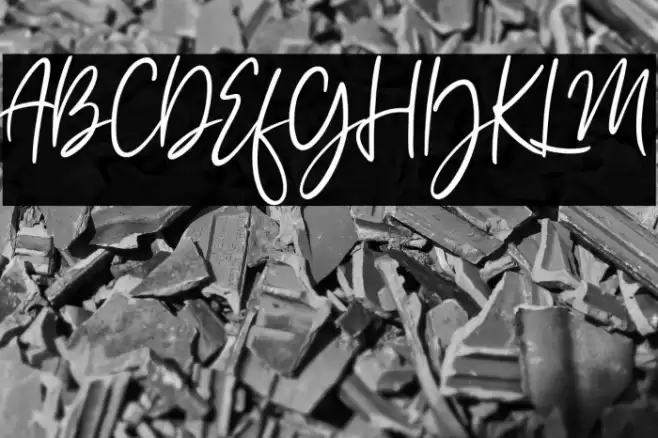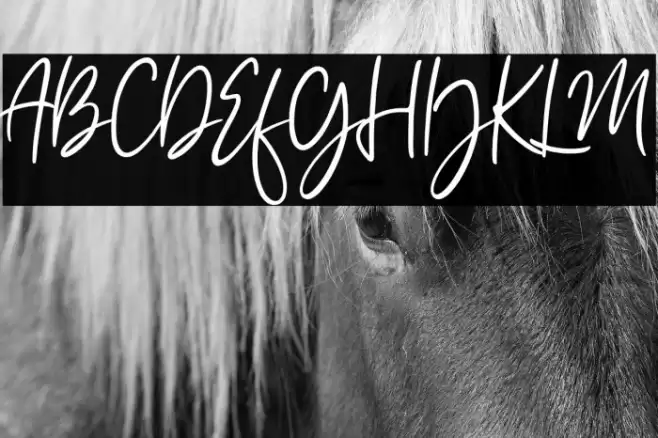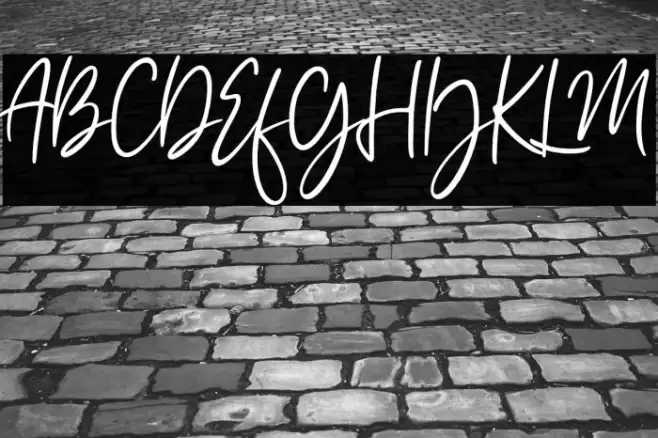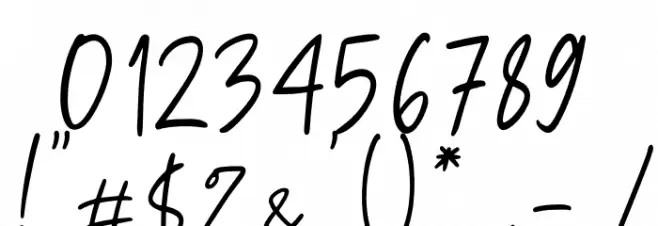
Amelia Sophia Font
Amelia Sophia Description
This font features a flowing, cursive style that mimics elegant handwriting. The letters are interconnected, creating a seamless and fluid appearance. The uppercase letters are tall and graceful, while the lowercase letters maintain a consistent rhythm and balance. The numbers and special characters complement the overall style with their smooth curves and loops. This font exudes a sense of sophistication and charm, making it ideal for projects that require a personal touch.
A flowing, cursive font with elegant, interconnected letters from Uncategorized fonts.
- Font: Amelia Sophia
- Character Spacing: Tight
- Overall Style: Elegant
Amelia Sophia UPPERCASE
Amelia Sophia LOWERCASE
Amelia Sophia OTHER CHARS